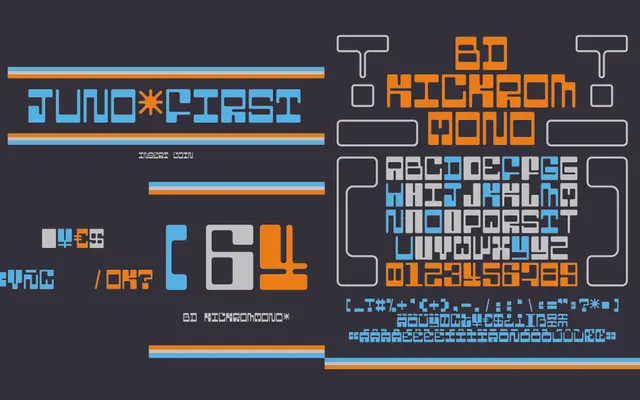
BD Kickrom Mono
Type Different · 2016
A retro-futuristic monospaced display font built around an uppercase-primary character set with variants on capitals, aimed at headline and packaging use.
Released in 2016, BD Kickrom Mono draws on the visual language of early computer terminals and gaming hardware, using a fixed-width structure that suits tight headline settings. The main characters sit on the lowercase keys, with capital variants providing alternates. Its single Regular weight is best deployed on posters, game titles, music packaging and magazine headlines where a lo-fi machine aesthetic is required.
A fixed-width, uppercase-oriented display face designed around retro computer terminal aesthetics, placing it firmly in the monospaced display category.